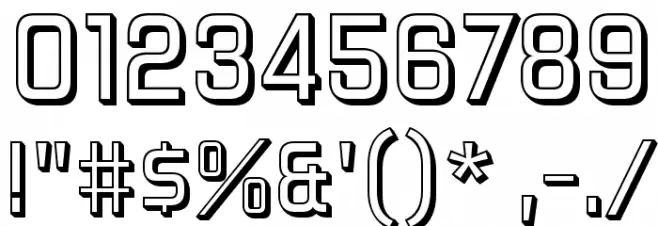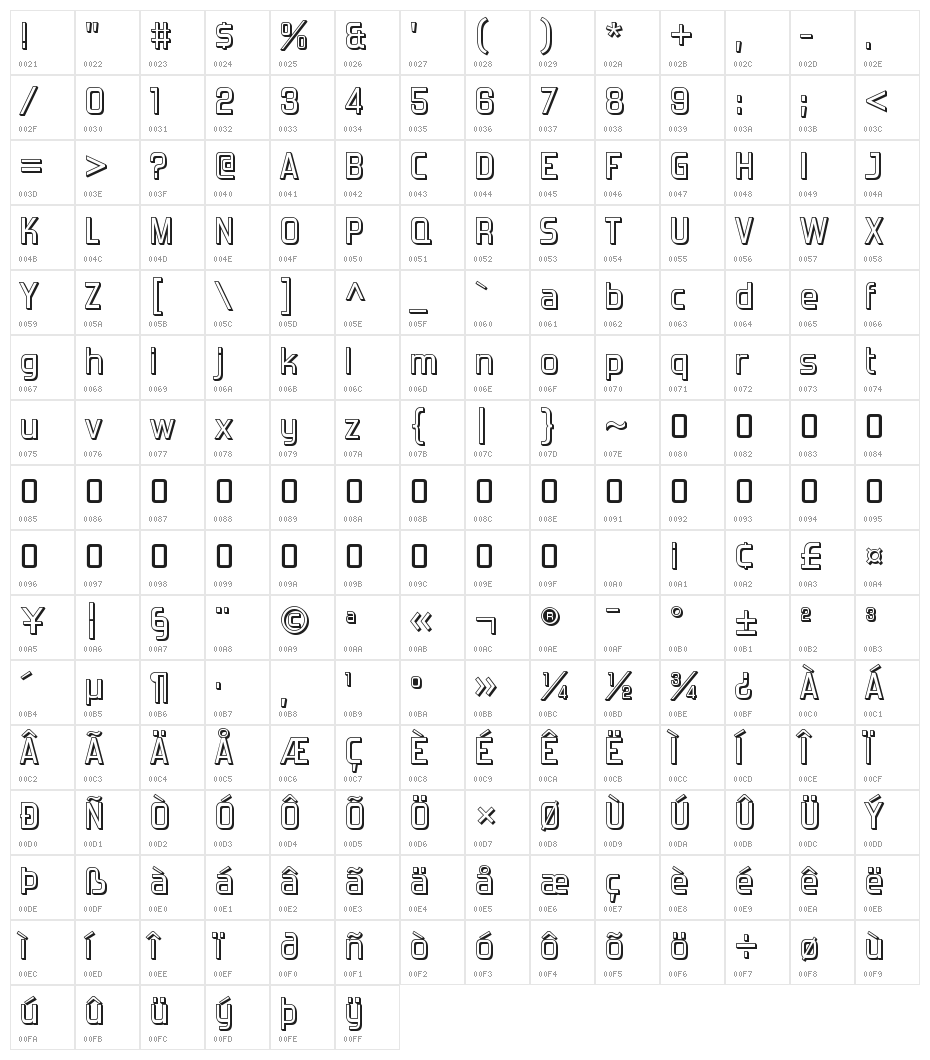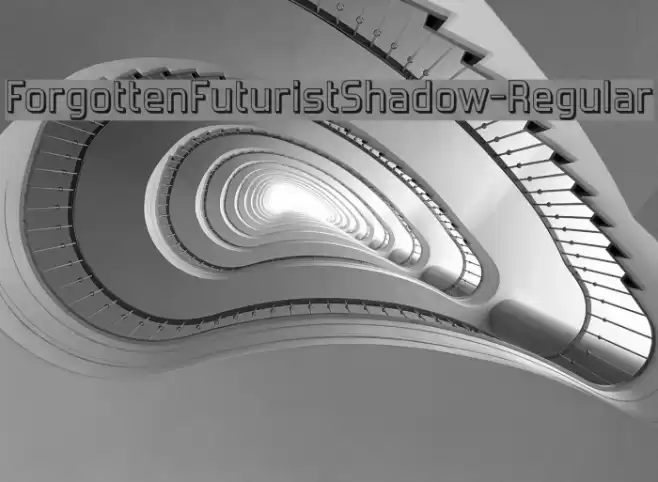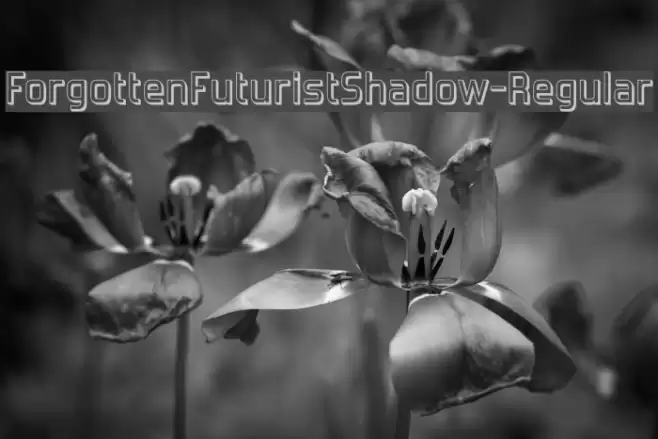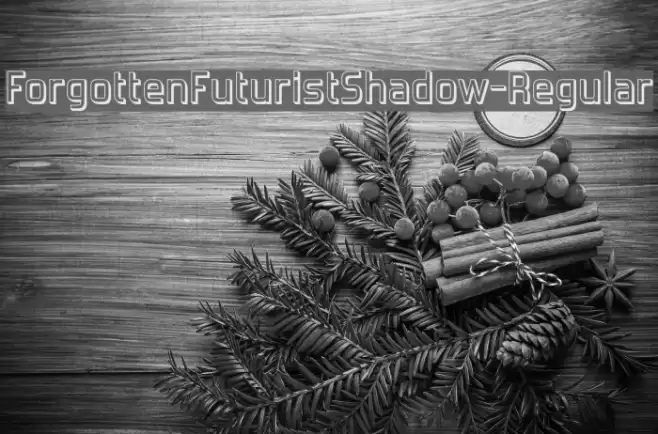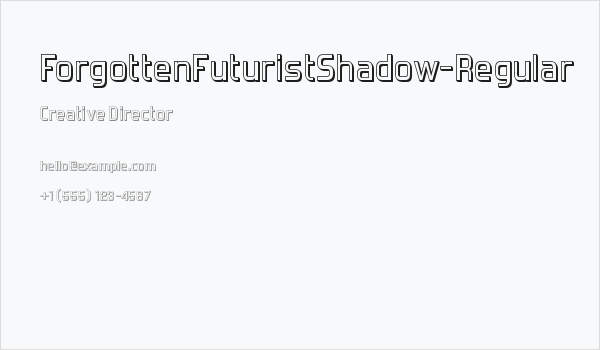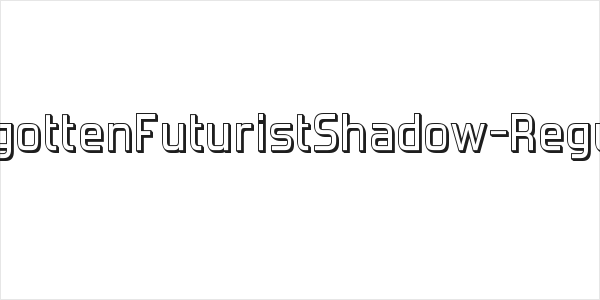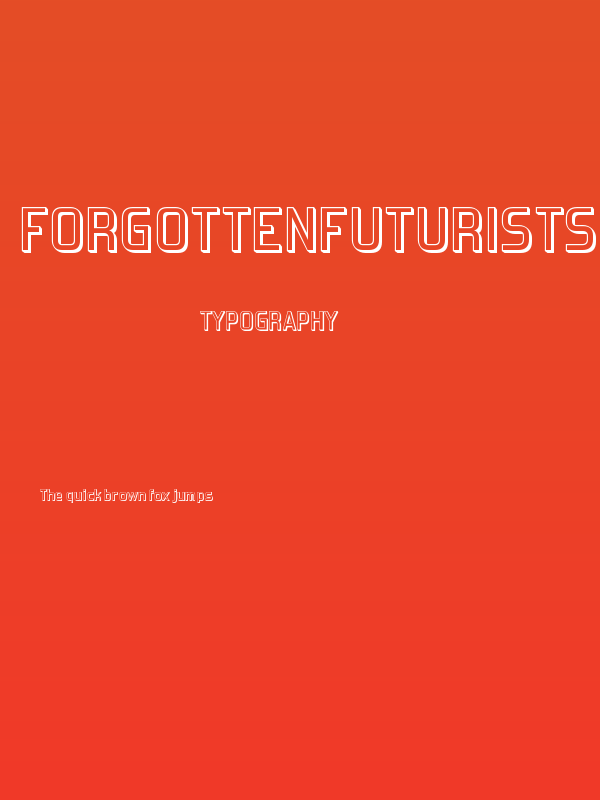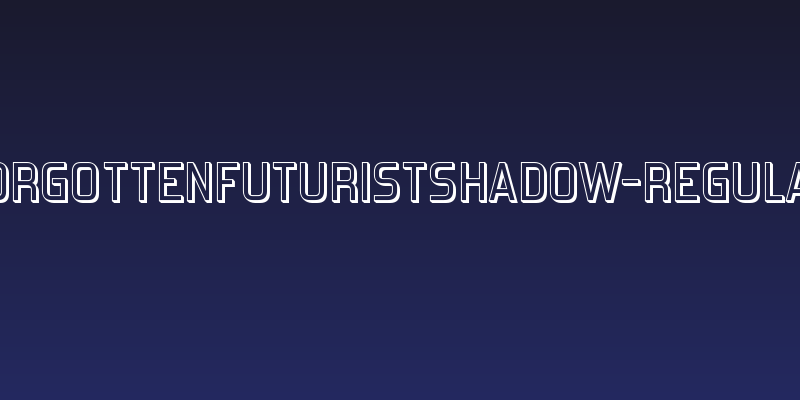
ForgottenFuturistShadow-Regular Font
ForgottenFuturistShadow-Regular Description
This font features a futuristic and geometric design with a shadow effect that gives it a three-dimensional appearance. The characters are outlined with a consistent stroke width, creating a bold and impactful look. The uppercase and lowercase letters maintain a uniform height, contributing to a clean and structured aesthetic. The numbers and special characters are designed with the same attention to detail, ensuring a cohesive visual style across all elements. The font's modern and technical feel makes it suitable for projects that require a contemporary and innovative touch.
| Proposed Projects | Ideal for technology branding, sci-fi themed projects, modern posters, and innovative product packaging. |